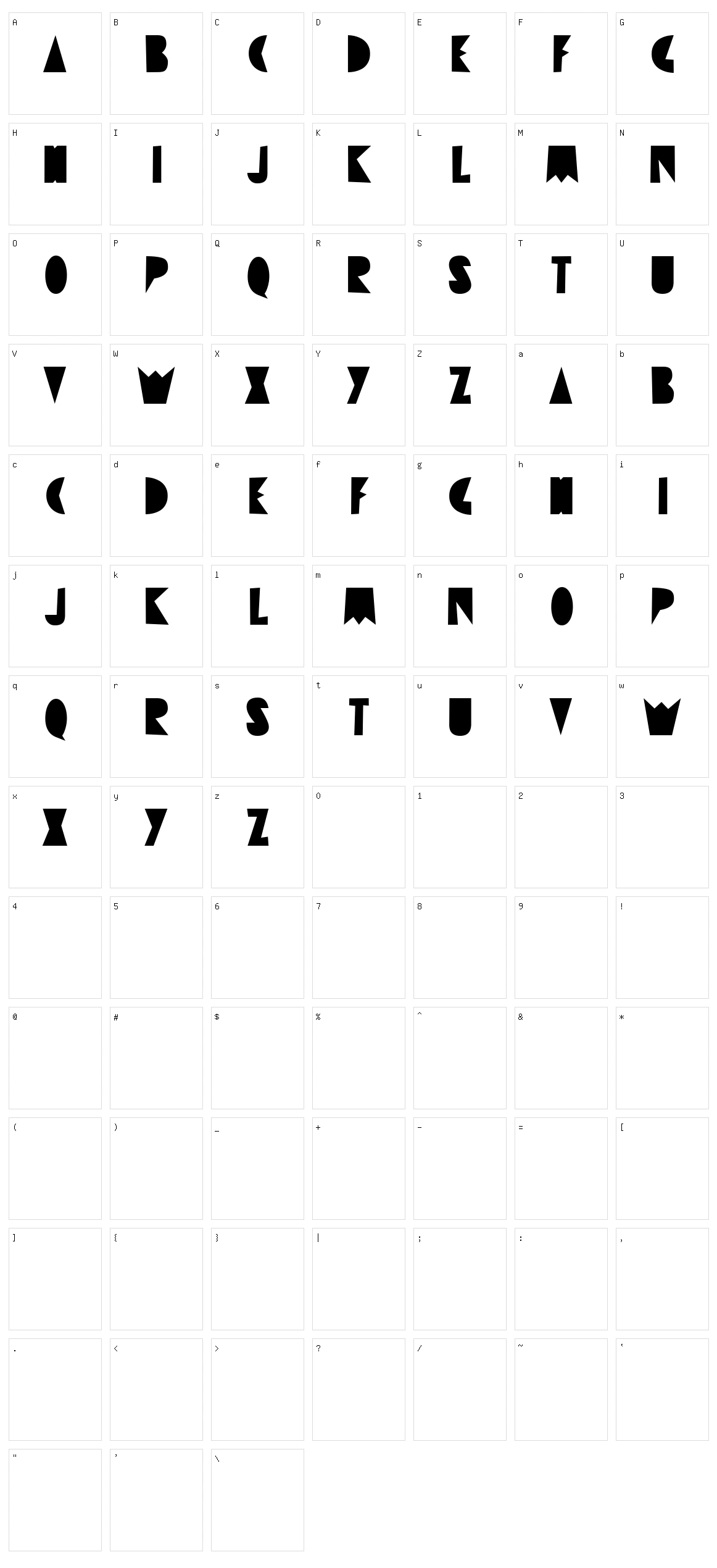
Destrukt
The free font Destrukt is carefully designed by Jérôme Berthemet, showcasing a thoughtful balance of creativity and usability and falls under the Distorted font style. When you download the ZIP file, it contains only 3.86 KB of font files, making it lightweight and quick to download. Please review the license details below to understand permitted usage and distribution rights. If license information is not available, we recommend using this font for personal projects only or contacting the author directly for commercial usage permissions.